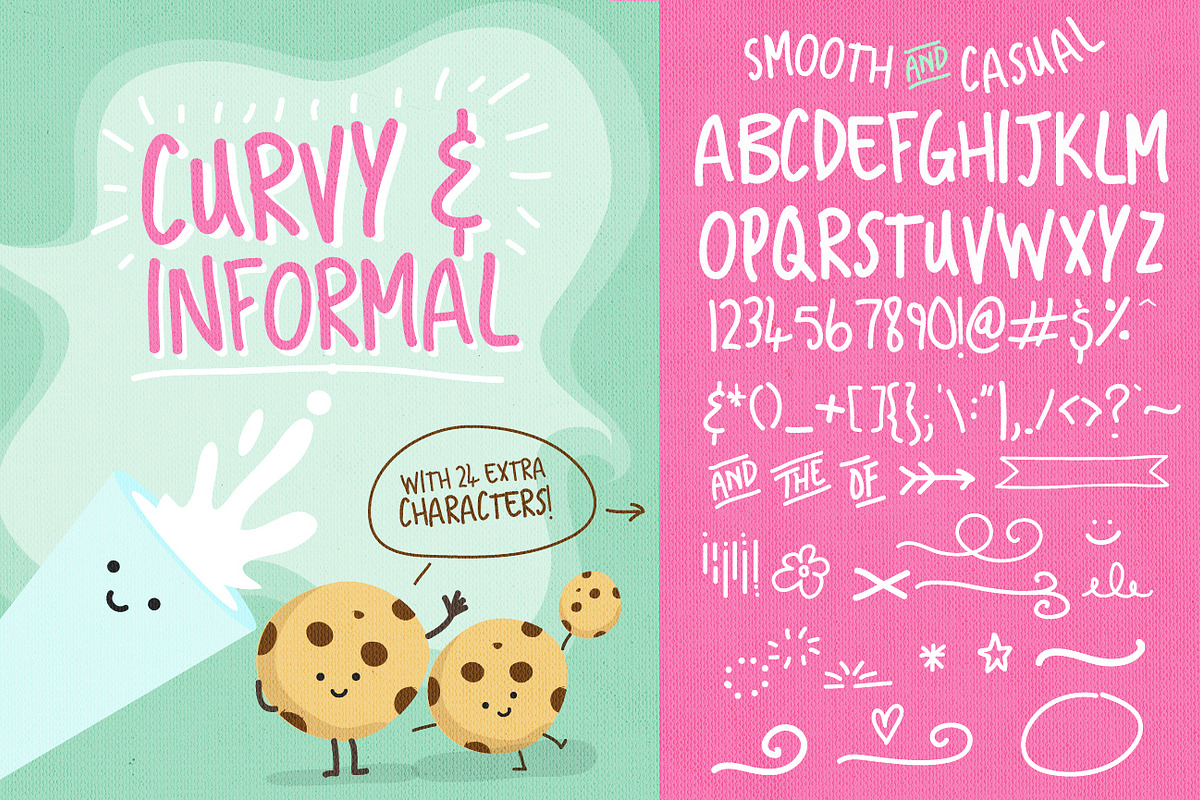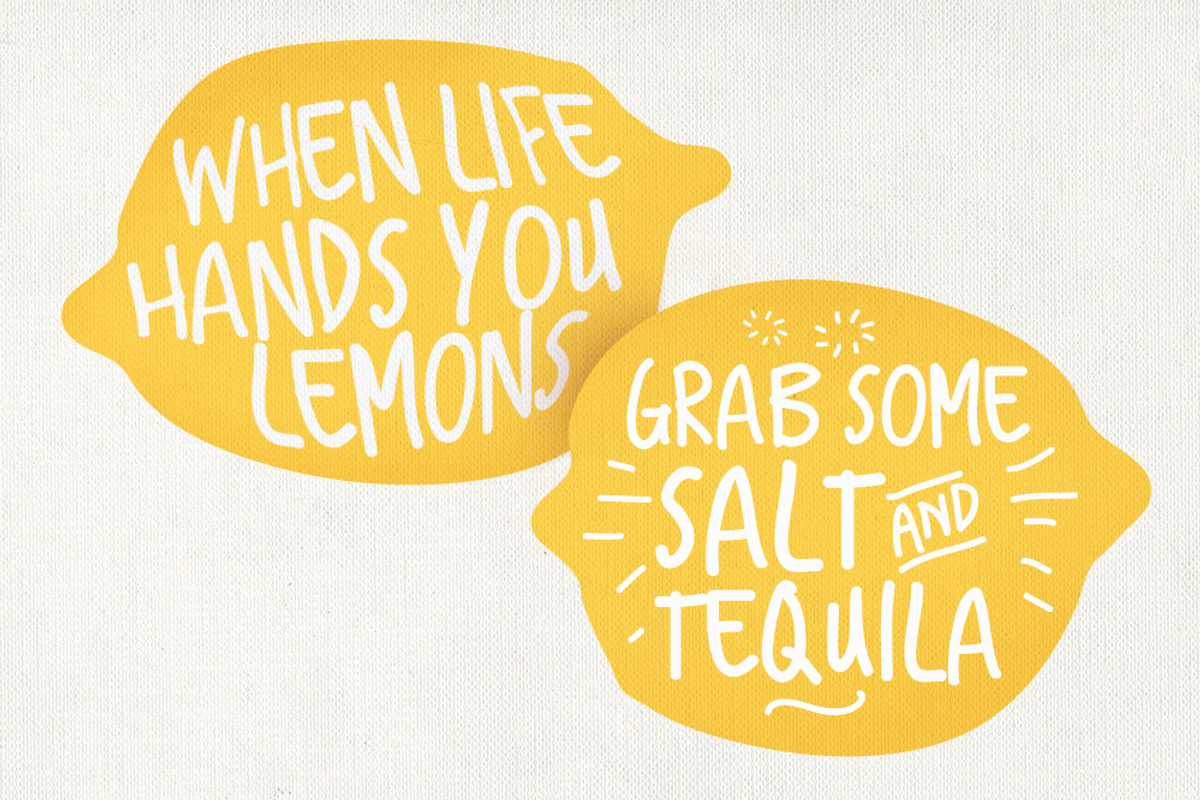
Cookies And Cream is a versatile casual typeface – designed initially for using in a recipe book as casual comments – Its actually very versatile, and can be used in a variety of project styles where a quick relaxed hand written type is needed. Fun, bouncy, quirky and casual – with 24 extra glyphs to enhance your designs.